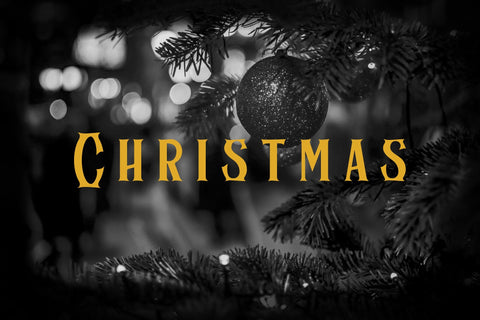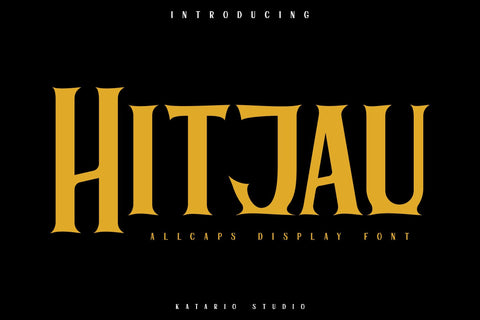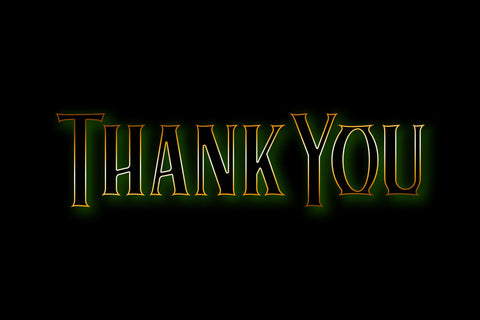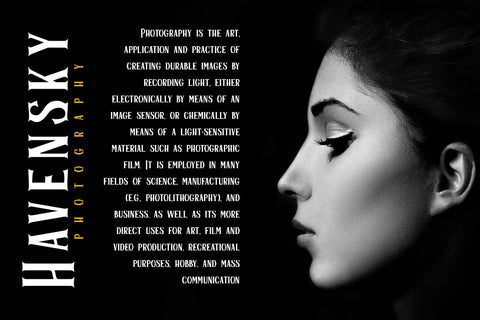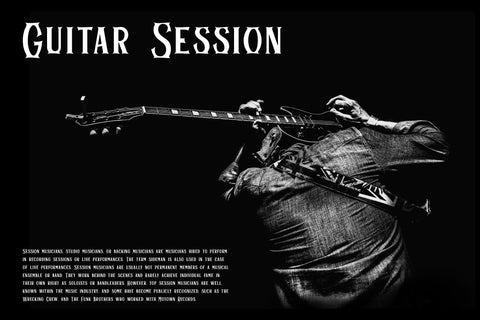
Hitjau | Allcaps Display Font
Hitjau is a unique and strong lettered display font. It has a bold style and it will most definitely make your designs stand out!